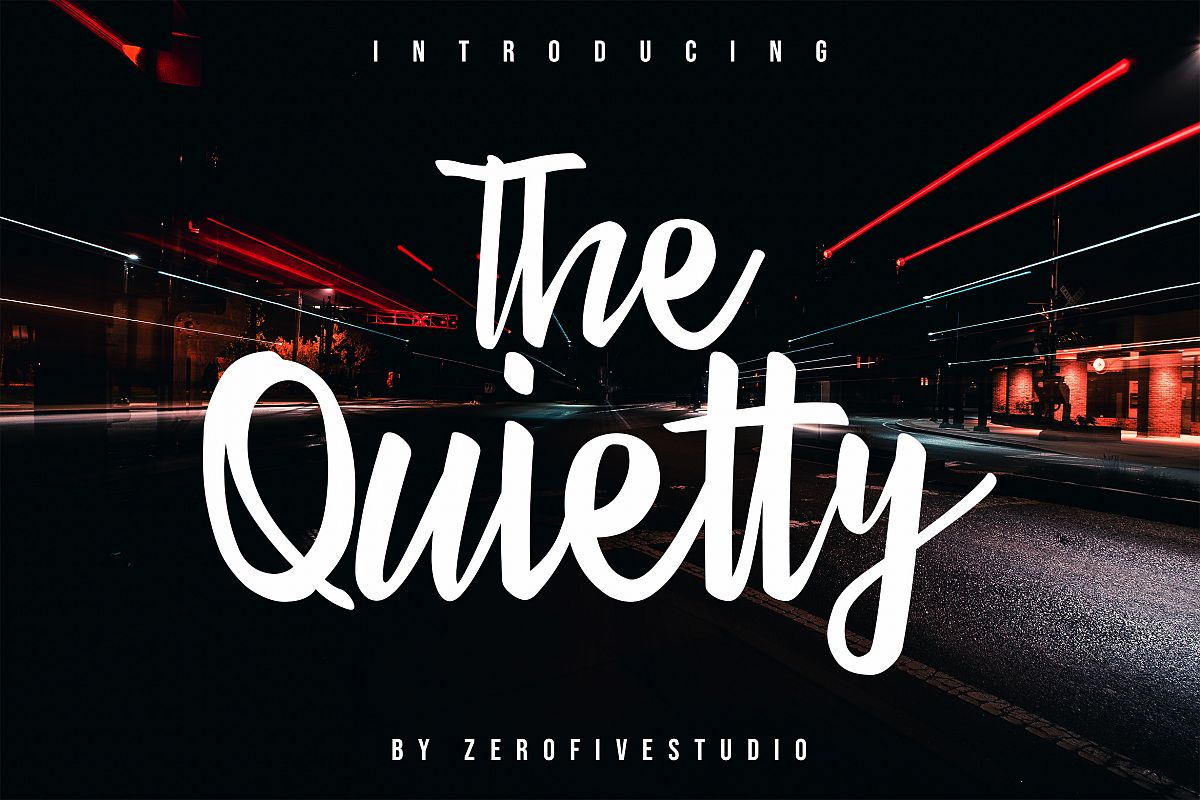
The Quietty
we just now launch our newest product called The Quietty is perfect for branding projects,
logo, wedding designs, social media posts, advertisements, product packaging, product designs, label, photography,
watermark, invitation, stationery and any projects that need handwriting taste.
- ligature
The Quietty